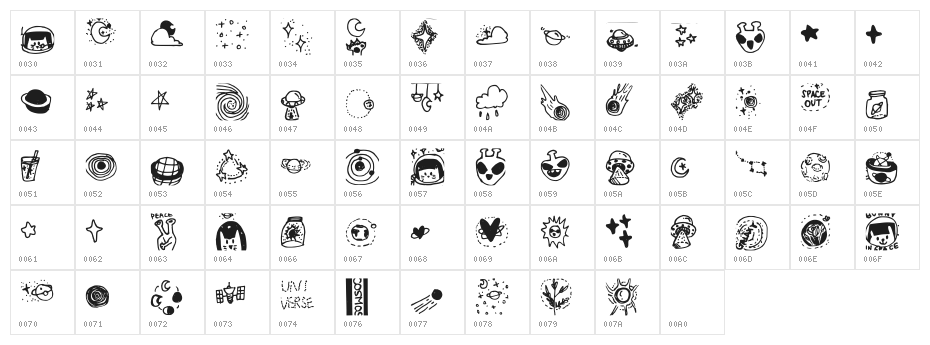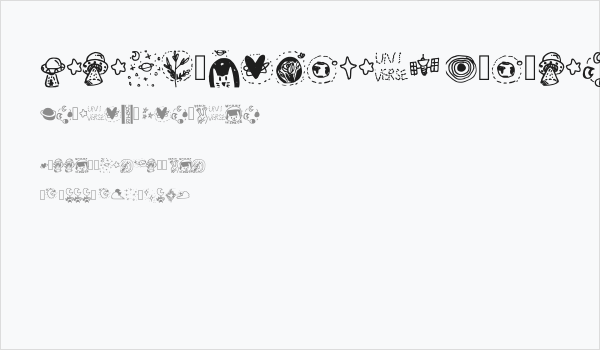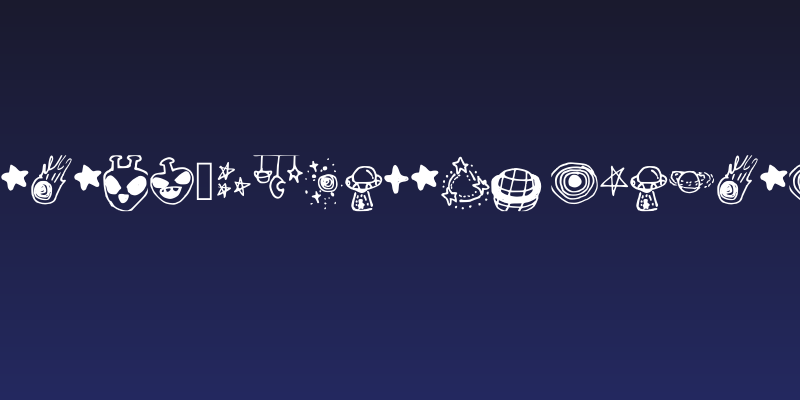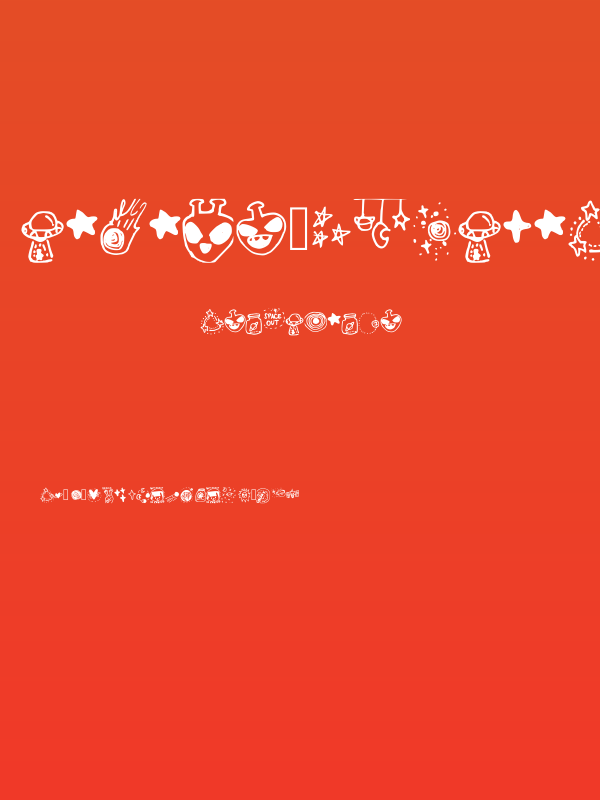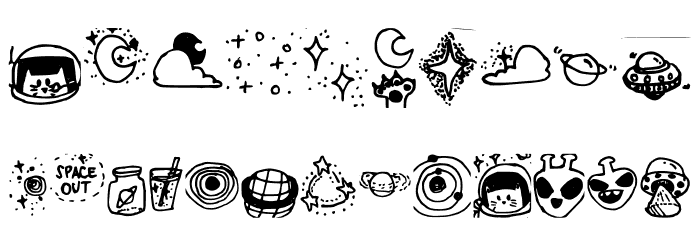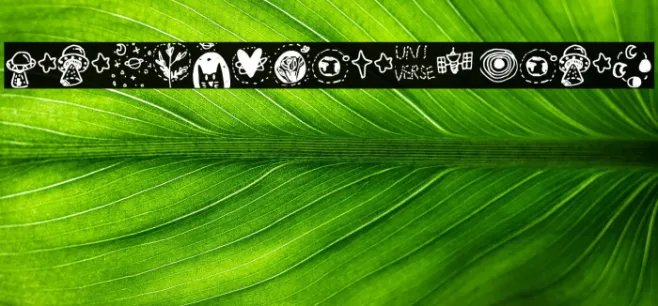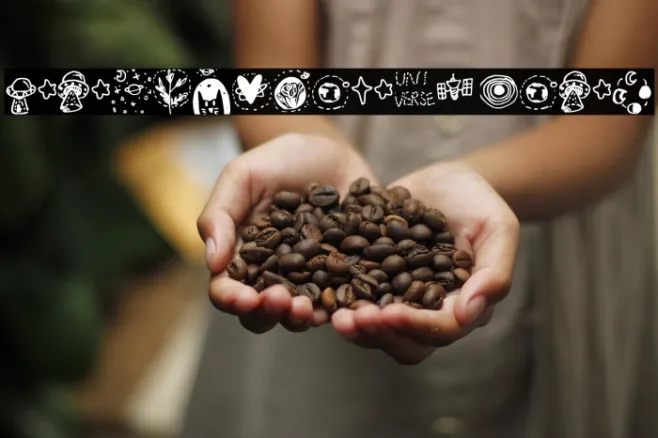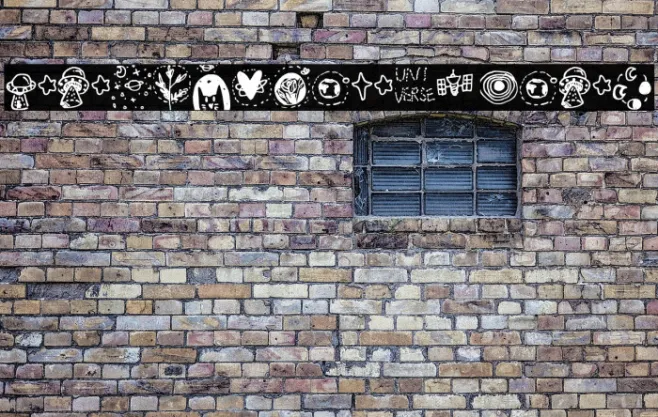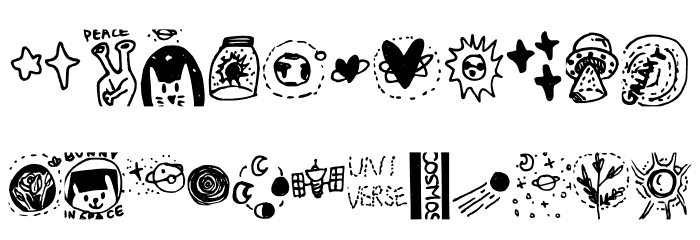
Galaxy_dingbats Regular Font
Galaxy_dingbats Regular Description
This collection of dingbats features a whimsical and playful array of space-themed illustrations. The designs include stars, planets, UFOs, astronauts, and other celestial motifs, each rendered in a hand-drawn, sketch-like style. The elements are bold and expressive, with a mix of solid and outlined shapes that add a dynamic and lively feel. The variety of icons provides a fun and imaginative way to incorporate cosmic elements into creative projects, making it ideal for designs that aim to capture a sense of wonder and exploration.
| Overall Style | Whimsical |
| Use Case | Decorative elements, Illustrations, Themed designs |
| Proposed Projects | Ideal for children's book illustrations, space-themed party invitations, educational materials, and creative social media graphics. |